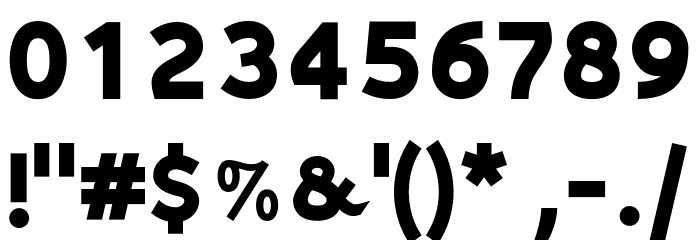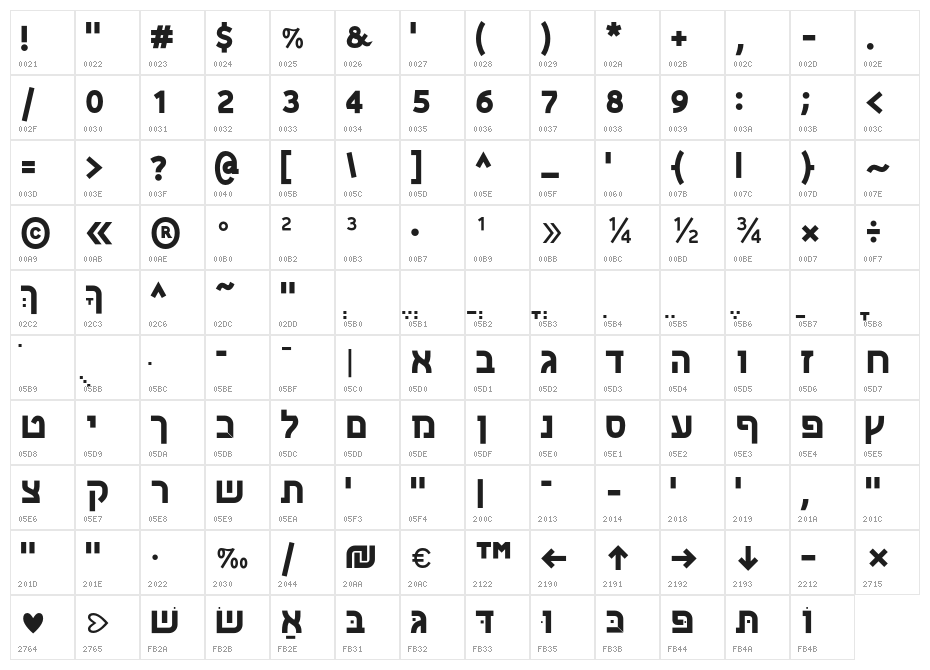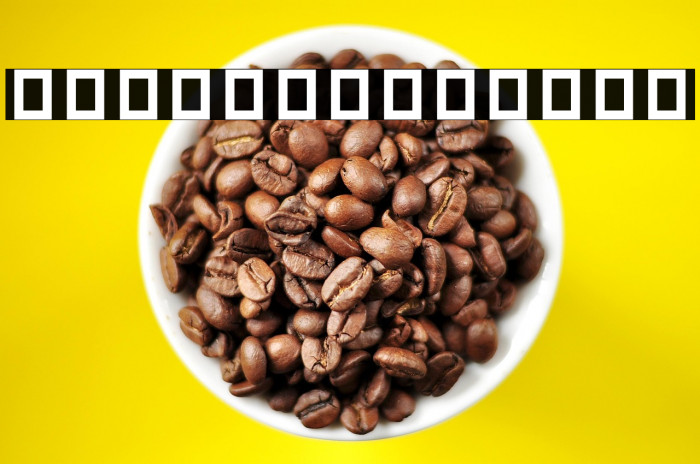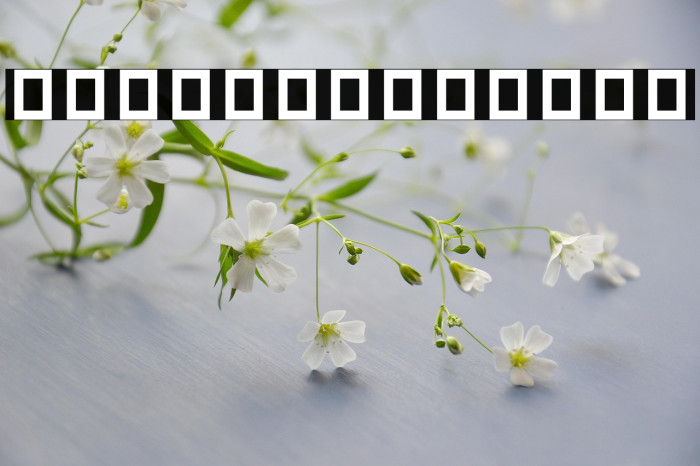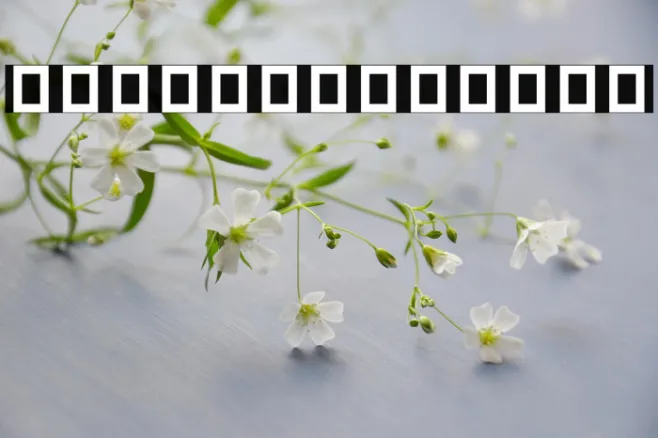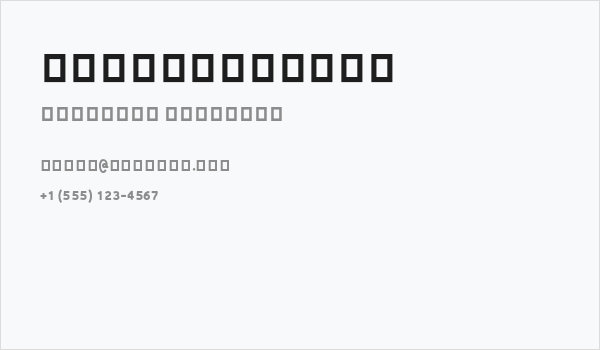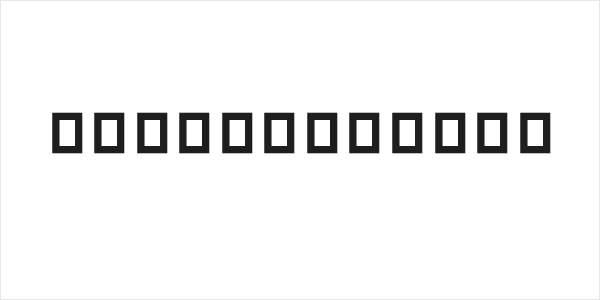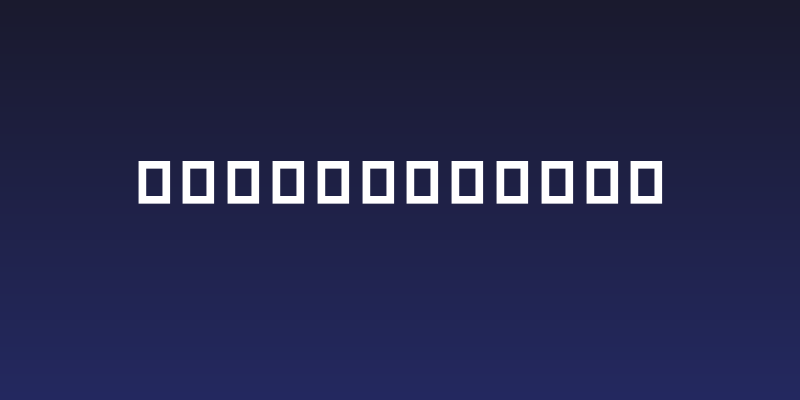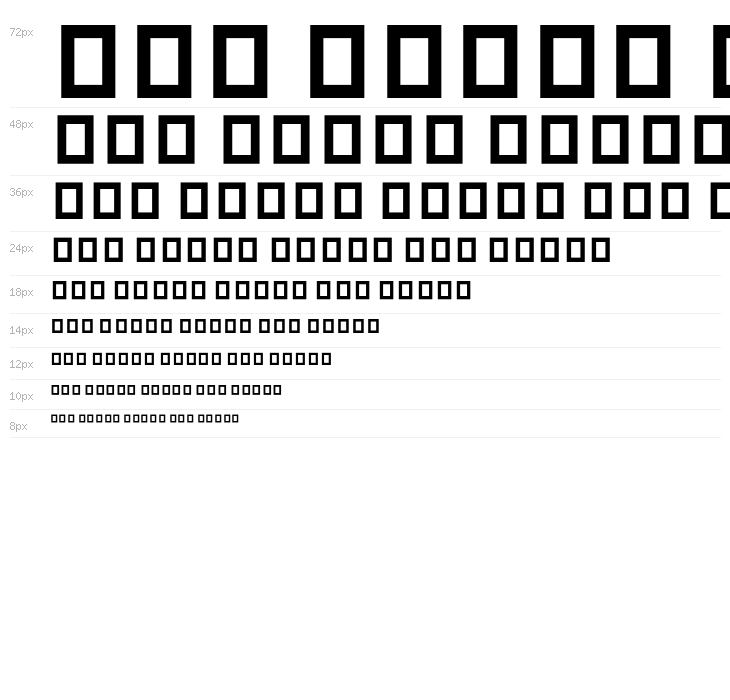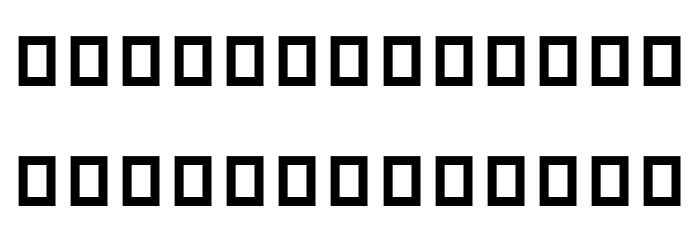
CarmelitBold Font
CarmelitBold Description
This font features a bold and modern design with clean lines and a strong presence. The characters are well-defined with a consistent stroke width, making it highly legible. The numerals are distinct and easy to read, while the special characters are clear and well-integrated into the overall design. The font's geometric shapes and uniformity give it a contemporary feel, suitable for various digital and print applications. Its boldness ensures that it stands out, making it ideal for headlines and attention-grabbing text.